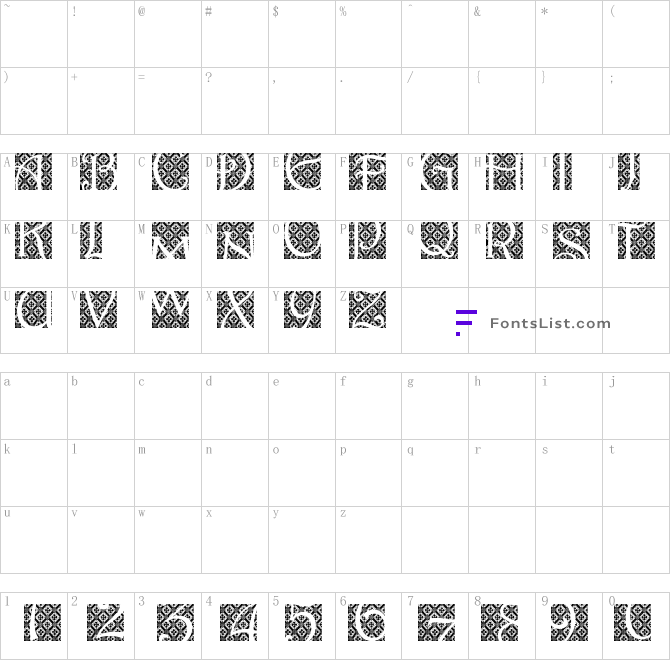
- Font Name:Batik Indo
Batik-Indo.ttf is a very beautiful artistic font, Batik-Indo.ttf is widely used in the design and printing of various books and pictures,Batik-Indo.ttf has a strong visual impact,Batik-Indo.ttf is a commonly used font in newspapers, magazines and books, and is used in posters, e-commerce Poster design, store design, logo design, font design and other fields.Batik-Indo.